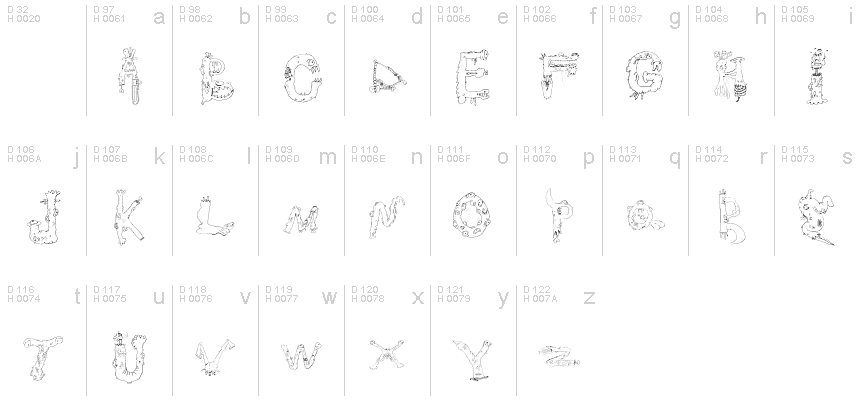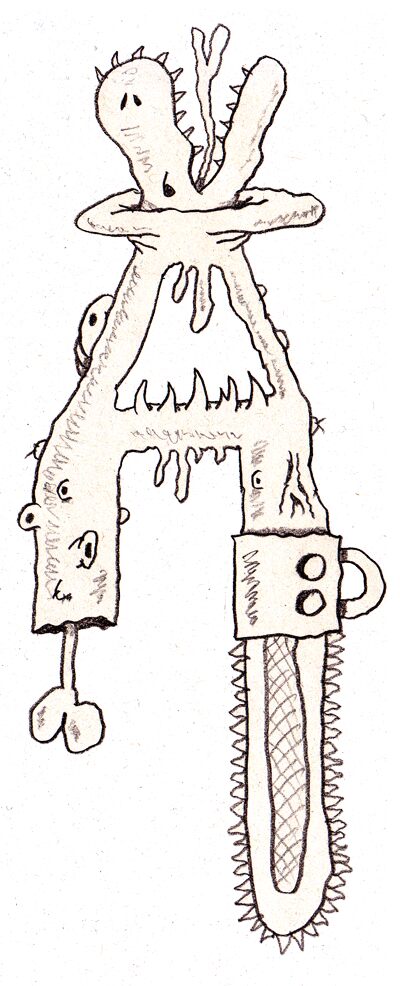
monstros
Monstros is a boldly captivating display font that effortlessly blends the whimsical and the sinister. Designed by Angelo Donnermann, this typeface exudes a delightfully eerie charm, with its cartoon-inspired letterforms and a distinct spooky edge. The font's robust weight and sharp, angular strokes lend it an undeniable sense of presence, making it an ideal choice for horror-themed designs, Halloween promotions, or any project seeking to evoke a playful yet unsettling aesthetic.
Its versatility shines through, as Monstros can seamlessly transition between bone-chilling title treatments and quirky, attention-grabbing accents. This font's striking personality and unique visual character make it a valuable asset for a wide range of design applications, from book covers and event posters to packaging and branding initiatives.